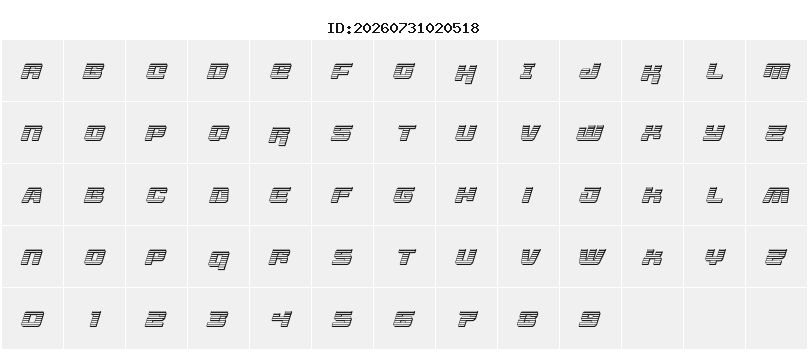
Livewired Chrome Italic Preview
• Font Name: Livewired Chrome Italic
• Full Font Name: Livewired Chrome Italic
About Livewired Chrome Italic.ttf
Livewired Chrome Italic.ttf is a modern, elegant sans-serif font designed for ultimate readability and visual harmony. Perfect for branding, headlines, web design, and print materials.